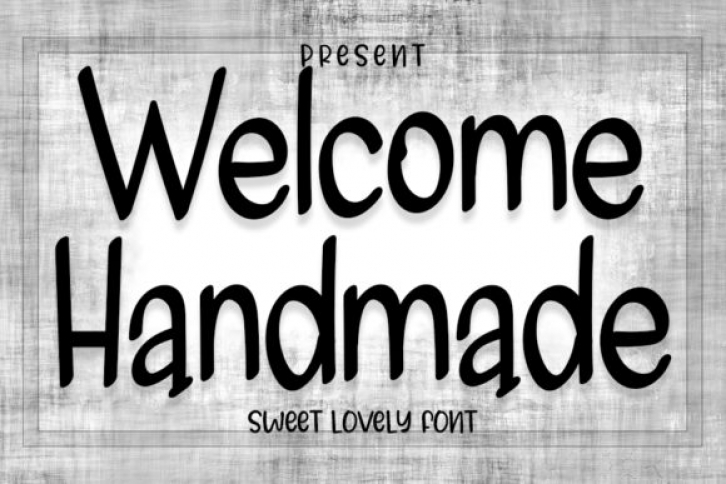
Welcome Handmade is a cute and charming handwritten font. Not too thin and not too thick, balanced and varied, this font was designed to enhance the beauty of your projects.